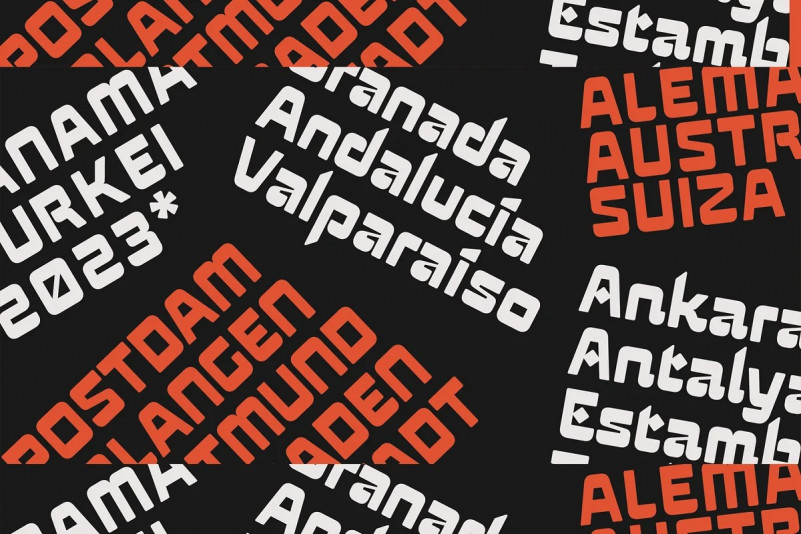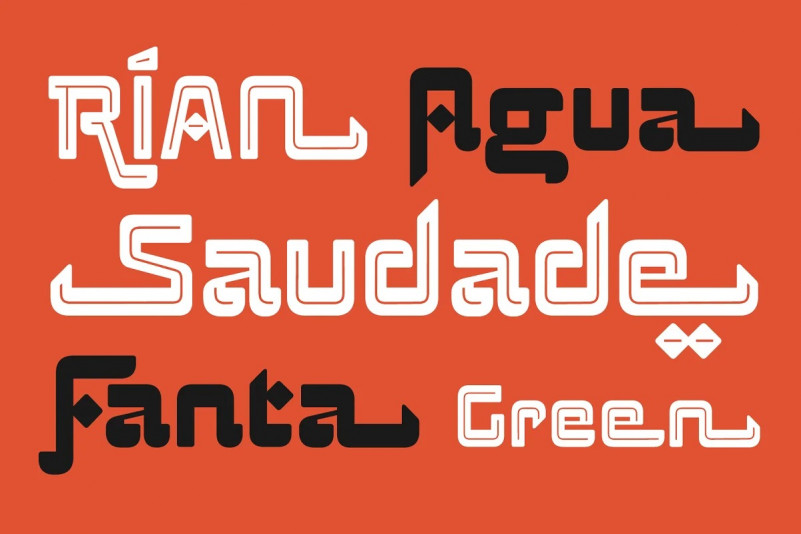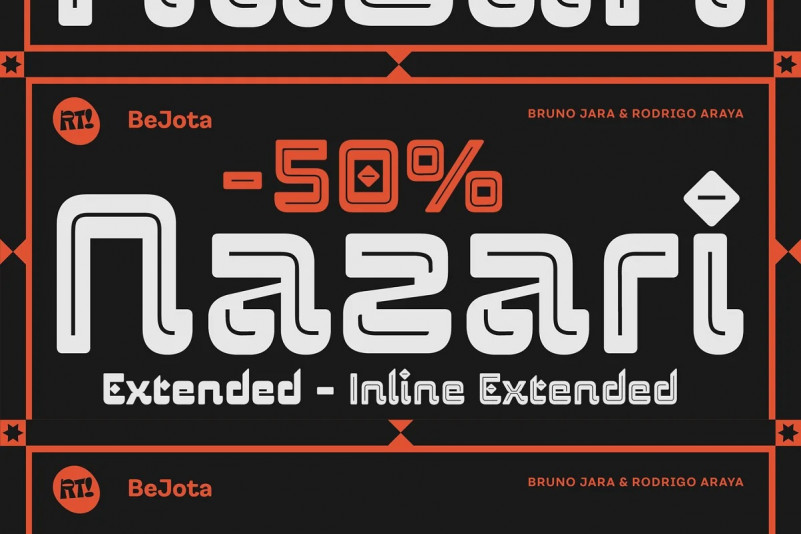
Nazari Font
Nazari Display Font is a typeface for titles with personality, character and multiple alternatives to design. Nazarí is inspired by Arabic lettering and calligraphy, but updates its shapes through games of high contrast, geometric design and rounded terminals. The family has 4 styles: Regular, Regular Inline, Sans and Sans Inline. In turn, Nazari is divided into a basic set and an extended set. The basic set supplies all the essential characters to design any graphic piece. The extended set also contains different contextual alternatives, ligatures and swashes.